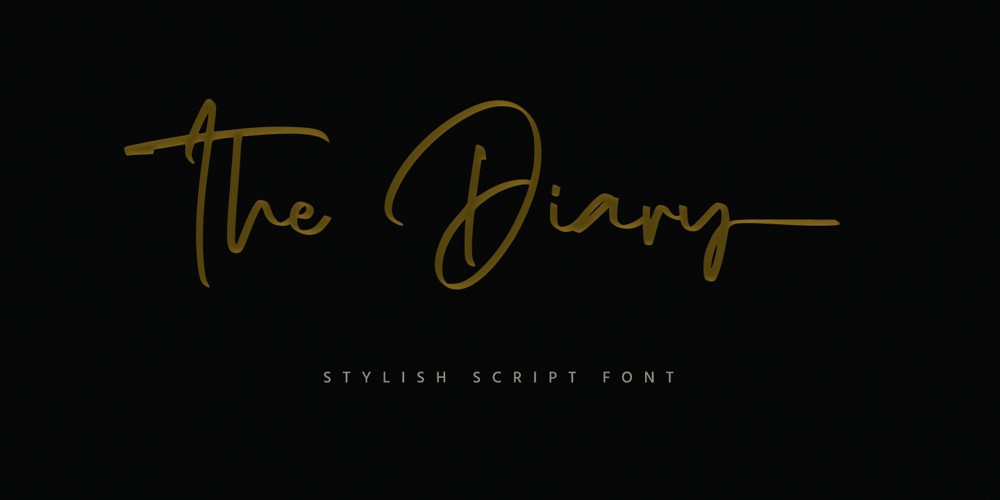
The Diary
The Diary font
The Diary Font Family was designed by Gie Studio and published by Gie Studio. The Diary contains 1 styles and family package options. Are you planning to do an amazing piece of work to make lots of people smile happily while taking your hat off every time?If so, this is the right time to give your work a little touch with a sincere and elegant writing.Introducing The Diary – A Stylish Script FontThe Diary is a stylish and elegant handlettering typeface with characters that dance along the line. It will add a luxury spark to any design project that you wish to create! This font will be very interesting if you use it for all your design purposes such as; logos, wedding invitation, business cards, printed quotes, invitations of all sorts, cards, packaging, and your website or social media branding.The diary includes Multilingual Options to make your branding globally acceptable.Features: Standard Ligatures Swash collection Stylistic Sets Multilingual Support PUA Encoded Numerals and Punctuation Special baseline collection Thank you for your visit and downloading premium fonts from Gie Studio